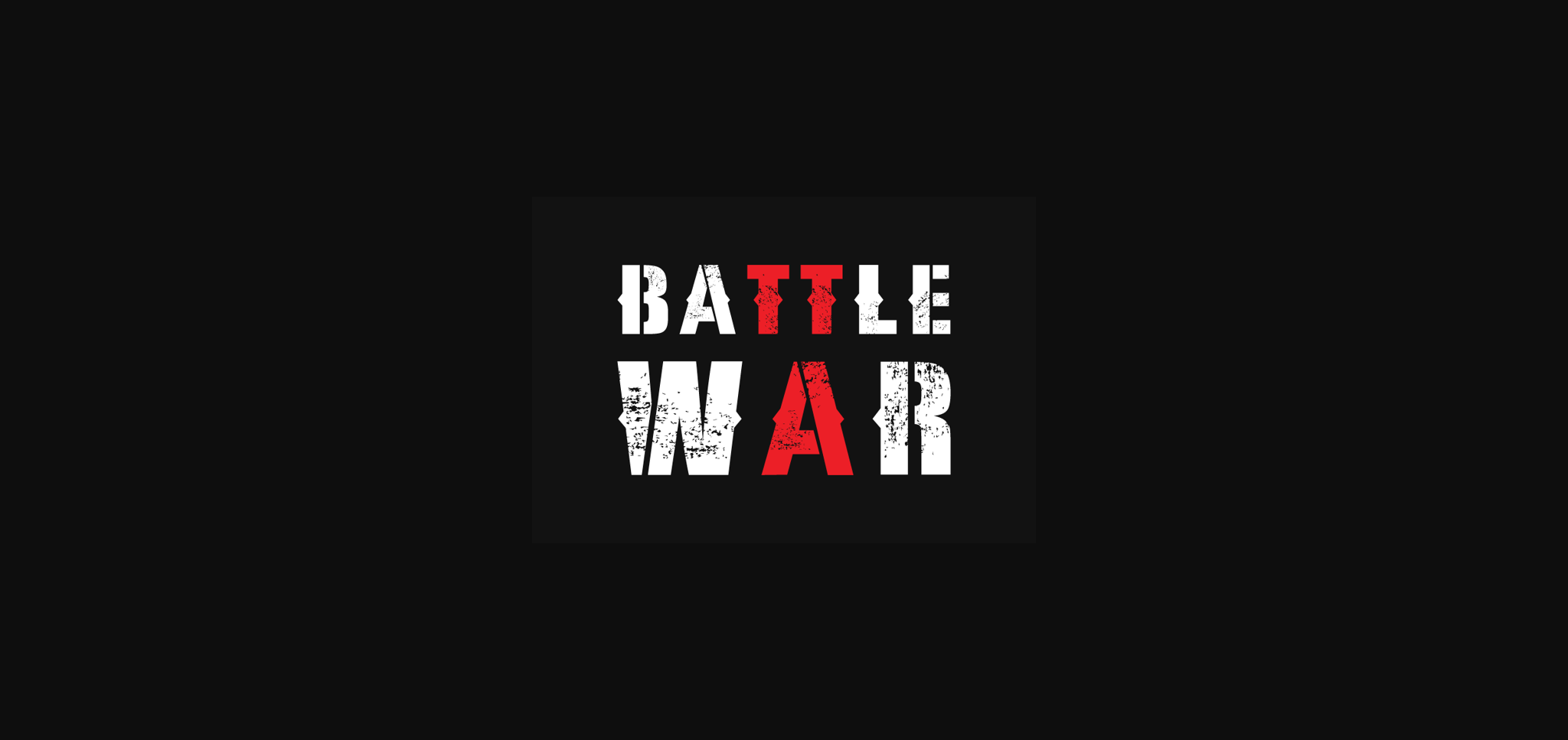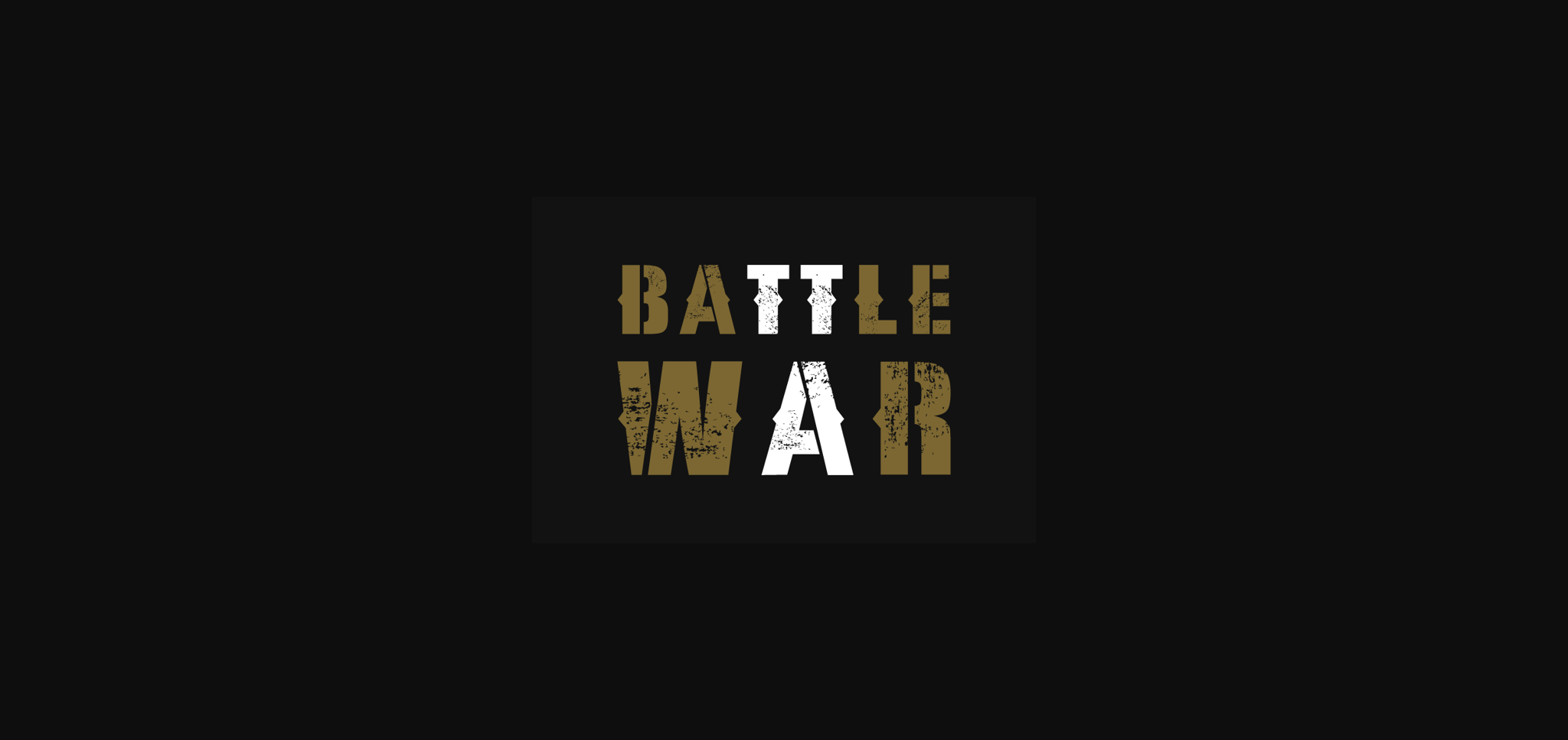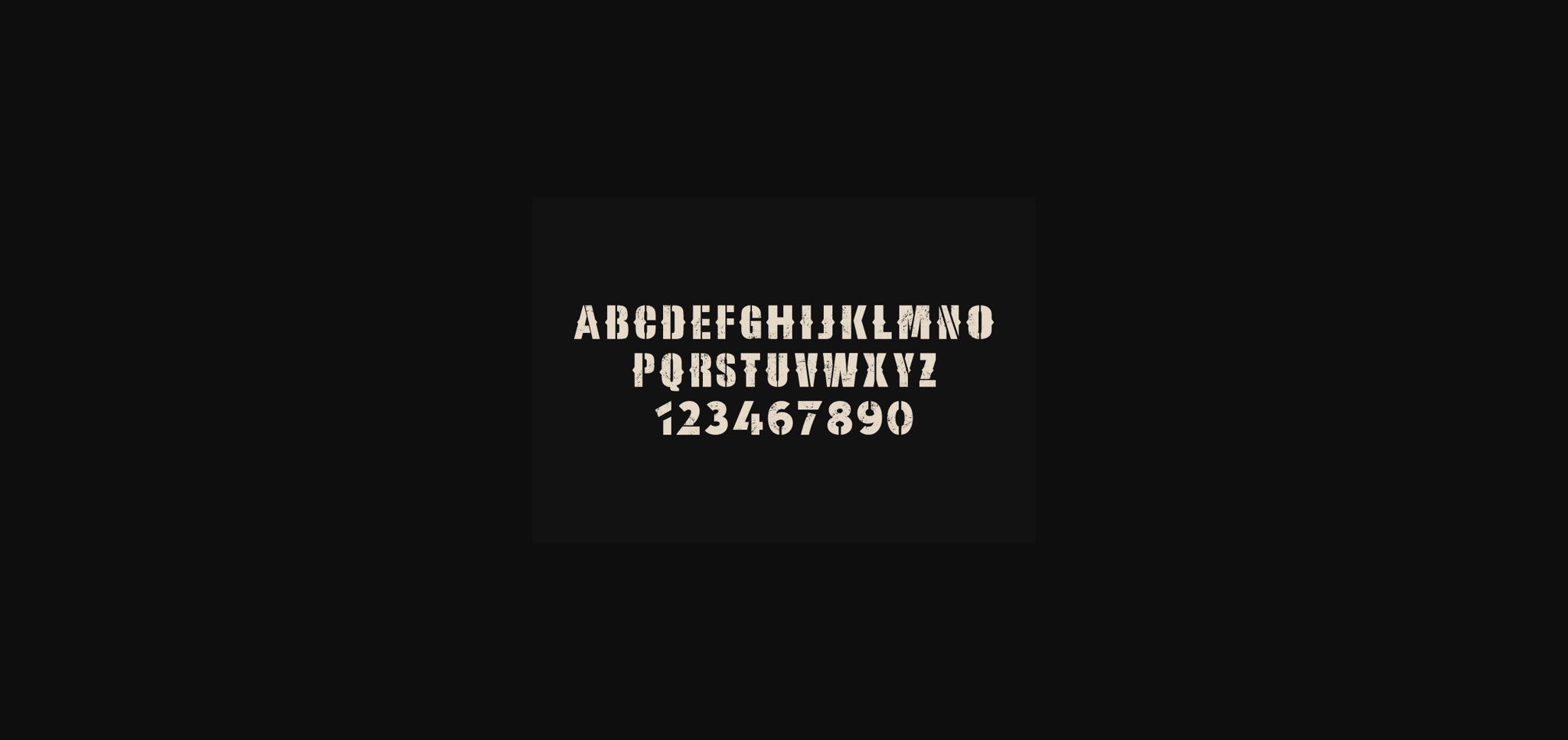
About Battle War Font
Battle War is a real statement-maker, with its edgy and raw design. Battle War’s rough lines and distressed texture create a sense of grit and rebellion, making it perfect for anything that demands a touch of boldness and individuality, from posters and album covers to streetwear branding.